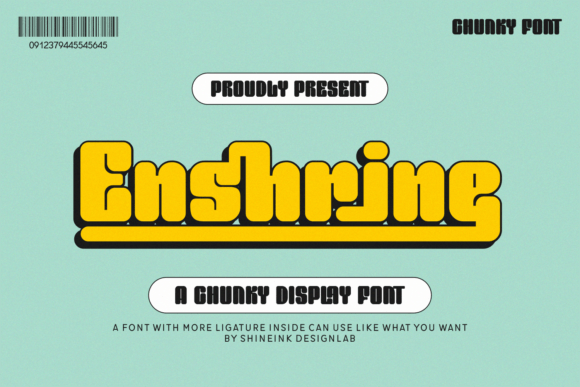
Step into a world of groovy nostalgia with Enshrine, a retro display typeface that captures the essence of the swinging 70s. Its bold, playful letters dance across your digital canvas, evoking the vibrant energy of vintage advertisements and the soulful charm of album covers.
With Enshrine, you have the power to transport your designs back to the era of bell bottoms, disco balls, and lava lamps. Its playful curves and funky shapes add a touch of whimsy and fun to any project, making it the perfect choice for retro branding, eye-catching posters, and nostalgic packaging.
This font is not just a collection of letters; it's a portal to a bygone era, where creativity and self-expression flourished. Use Enshrine to craft designs that ooze retro charm, capturing the attention of your audience and leaving them with a smile on their face.
Unleash your inner groove and embrace the retro revolution with Enshrine. Let its playful spirit infuse your designs with a touch of nostalgia, creating visuals that resonate with those who cherish the golden days of the 70s. Get ready to make a statement, turn heads, and leave an unforgettable impression with every design you create.
And the best part? Enshrine is PUA encoded, granting you effortless access to a treasure trove of delightful glyphs and swashes. Experiment with different combinations, let your creativity soar, and watch as your designs transform into captivating masterpieces that speak volumes about your unique style.